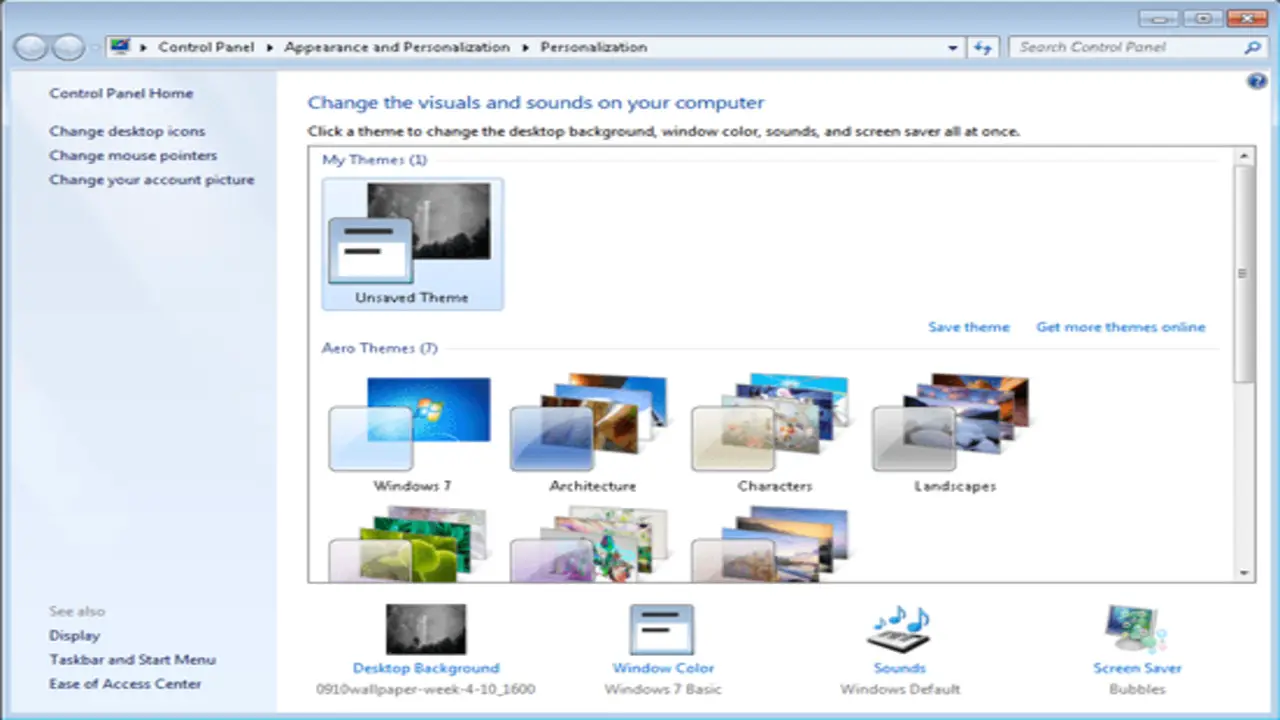
In today’s fast-paced digital world, it’s essential to have a good understanding of your computer’s operating system and its features. Changing font Windows 7 is a widely used operating system that offers a range of powerful tools and features to make your computing experience more efficient and enjoyable.
One of the most useful features of Windows 7 is the ability to change font styles quickly and easily. This feature allows you to customize your computer’s appearance and improve readability. Whether working on a document or browsing the web, changing font styles can significantly impact your overall experience.
However, many people are unaware of how to use this feature and often struggle to change the font style on their devices. That’s why we’ve created this guide to help you understand how to change font windows 7. Here, we’ll take you through changing font styles step-by-step so that you can enjoy a more personalized and readable computing experience.
Steps To Change Font Windows 7
Windows operating system offers a variety of features and options that can enhance the user’s experience and productivity. One such feature is the ability to change the font of the text displayed on the screen.
Changing the font is a straightforward process that can be done through the Control Panel or the Settings app. Users can go to the Appearance and Personalization section in the Control Panel and select the Fonts option. Here, they can view and manage all the installed fonts and add new ones if needed.
To change font Windows 7, you can follow these steps:
- Right-click on the desktop and select “Personalize” from the context menu.
- In the Personalization window, click on “Window Color” at the bottom of the window.
- Click the “Advanced appearance settings” link in the Window Colour and Appearance dialogue box.
- In the “Item” dropdown menu, select the item you want to change the font. For example, if you want to change the font for icons on the desktop, select “Icon” from the dropdown menu.
- Next to the “Font” option, click the down arrow to see a list of available fonts.
- Scroll through the list and select the font you want to use. You can also change the font style, size, and effects (such as bold or italic) from the respective options.
- Click on the “OK” button to apply the changes.
- Repeat steps 4 to 7 for any other items you want to change the font for.
- Once you have made all the desired font changes, click on the “OK” button in the Window Color and Appearance dialogue box.
Troubleshooting Font Issues In Windows
Windows operating system offers a variety of features and options that can enhance the user’s experience and productivity. One such feature is the ability to change the font of the text displayed on the screen.
Changing the font is a straightforward process that can be done through the Control Panel or the Settings app. Users can go to the Appearance and Personalization section in the Control Panel and select the Fonts option. Here, they can view and manage all the installed fonts and add new ones if needed.
Alternatively, users can access the Settings app by pressing the Windows key + I and selecting the Personalization option. From there, they can go to the Fonts section and choose the font they want for items such as the title bars, icons, and menus. The preview feature allows users to see how the text will look with the selected font before applying the changes.
Change font windows 7 is a simple and useful skill. It allows you to personalize your computer and make it easier to read, which can be especially helpful for those with visual impairments. With the steps outlined in this post, you can easily change the font on your Windows 7 computer. Remember to choose a font that you like and that is easy to read. Following these instructions can make your computer experience more enjoyable and efficient.
FAQ
1.What Are The Steps To Change The Font In Windows 7?
Ans: To change the font in Windows 7, follow these steps:
- Click the “Start” button and select “Control Panel.”
- In the Control Panel, select “Appearance and Personalization.”
- Under “Fonts,” click on “Change Font Settings.
- Can I Customize The Size And Style Of The Font In Windows 7?
Ans: Yes, you can customize the size and style of the font in Windows 7. You can change the font size and style for various user interface elements, such as menus, icons, and window titles.
3.How Do I Revert To The Default Font Settings In Windows 7?
Ans: To revert to the default font settings in Windows 7, follow these steps:
- Click on the Start menu and select Control Panel.
- In the Control Panel, click on Appearance and Personalization.
4.Is It Possible To Change The Font For Specific Applications Or Programs In Windows 7?
Ans: Yes, changing the font for specific applications or programs in Windows 7 is possible. This can be done by adjusting the settings within the individual program or application itself or changing the font settings within the Windows Control Panel.
5.Are There Any Recommended Fonts For Better Readability On Windows 7?
Ans: Several fonts are recommended for better readability on Windows 7, including Calibri, Cambria, Verdana, and Tahoma. These fonts are designed to be easily read on screens and have a clean and modern look.